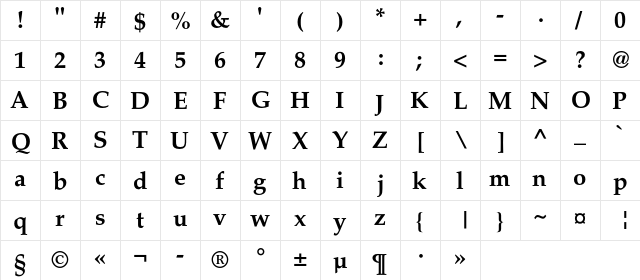
AGPalatialC Bold
Design Context for AGPalatialC Typeface
AGPalatialC is a composed and adaptable typeface that performs quietly and consistently across a wide range of design contexts. Its bold stroke weight gives it real presence on the page.
Pro Tip: Pair AGPalatialC with a font of contrasting weight or personality to build a more expressive typographic hierarchy.